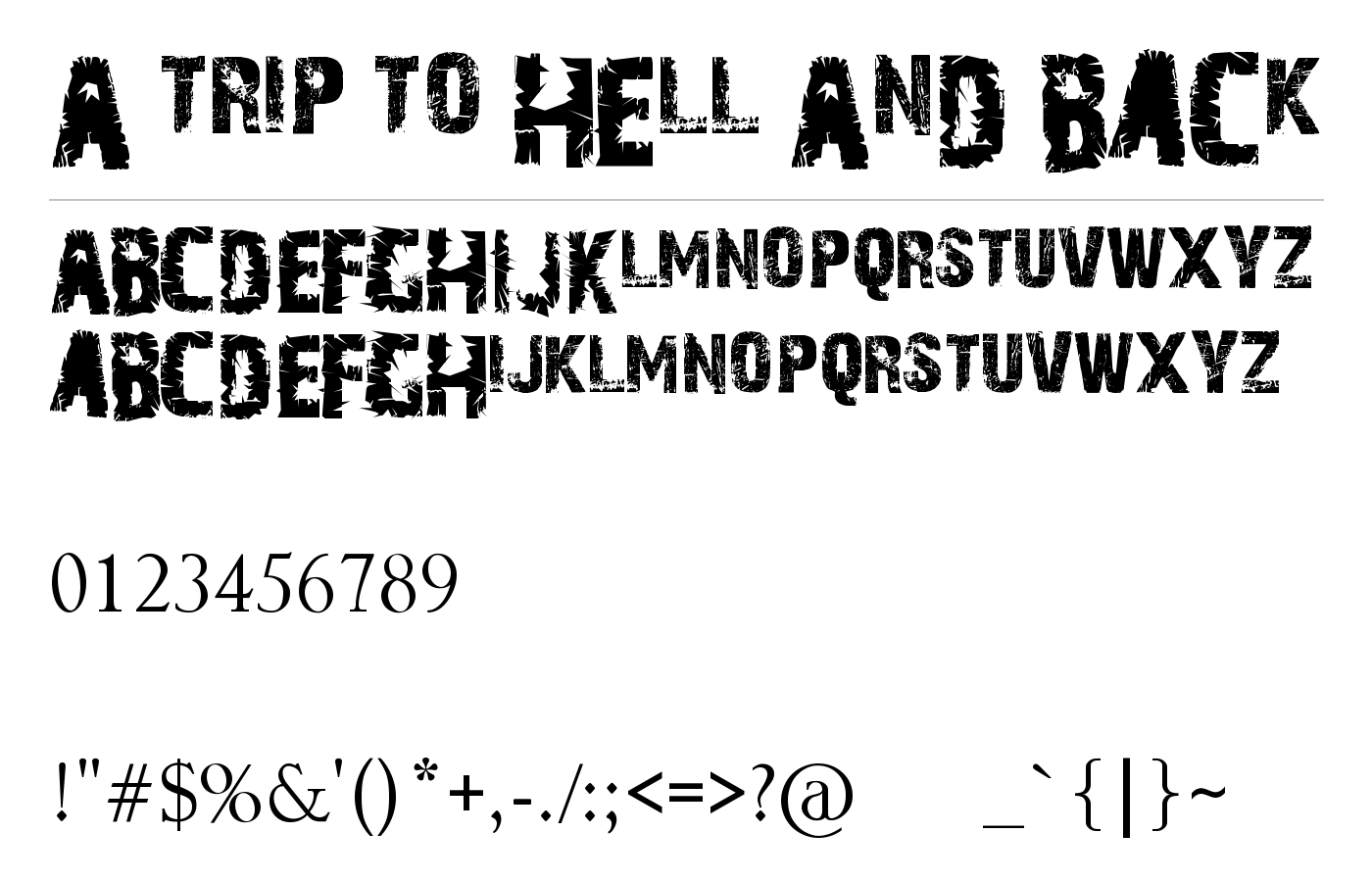
A Trip To Hell And Back is a bold, distressed sans serif font with a rugged, textured appearance that conveys a gritty, rebellious vibe. Its strong uppercase letters feature irregular, jagged edges and heavy weight, giving it a raw, impactful look ideal for edgy designs, posters, and branding that seek to evoke toughness or underground culture. This font works best in striking headlines or logos where a dramatic, attention-grabbing style is desired.
A Trip To Hell And Back Font
About A Trip To Hell And Back Font